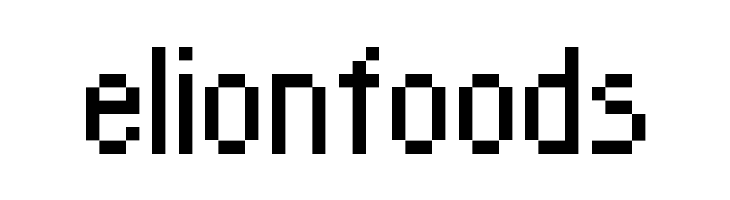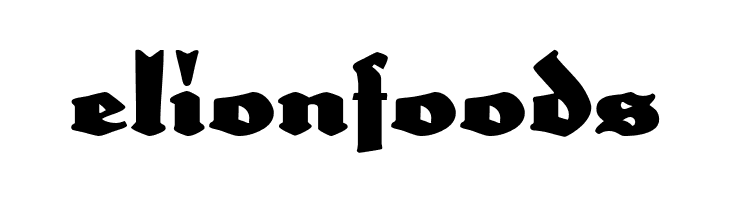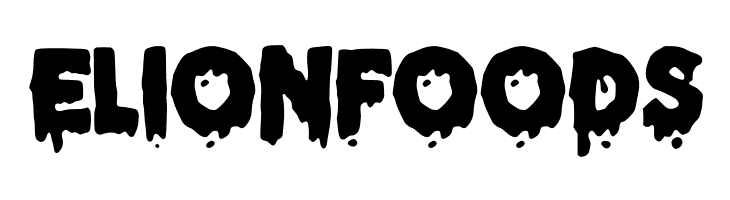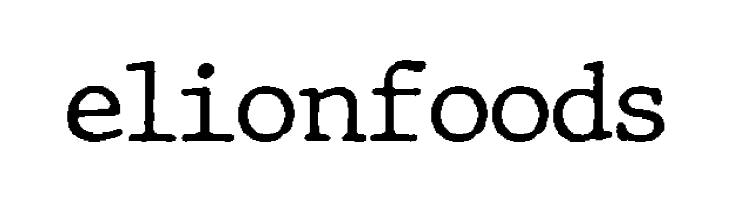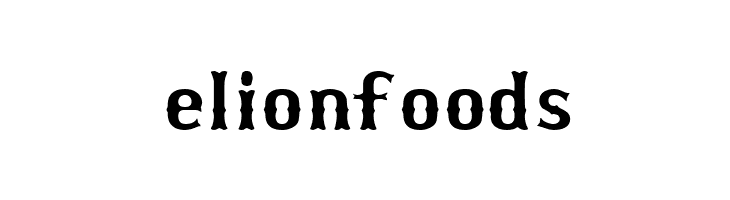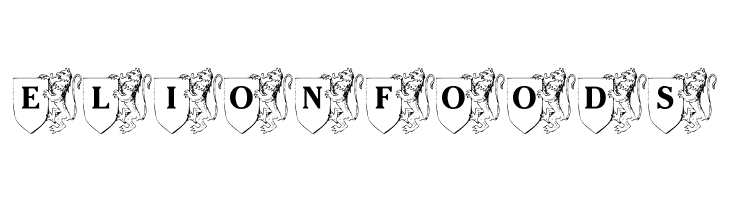
A bold, blackletter font with intricate, angular letterforms and a gothic flair.
A spooky, dripping font perfect for Halloween themes.
A classic typewriter-style monospaced font with a vintage aesthetic.
A pixelated, geometric font with a retro digital aesthetic.
A bold, vintage-style font with rounded serifs and a nostalgic flair.
An ornate, heraldic shield-enclosed decorative font with a regal flair.
A whimsical, gingerbread-themed font perfect for festive projects.
A decorative font with tropical island motifs integrated into each letter.
A bold, hand-drawn font with an artistic, graffiti-like style.
A pixelated, blocky font with a retro digital style.